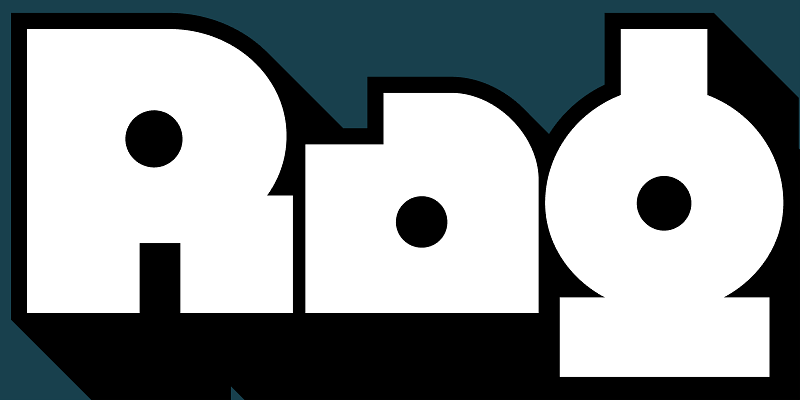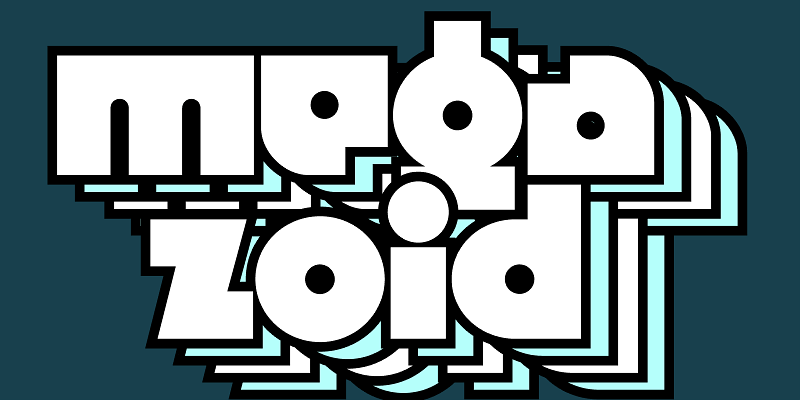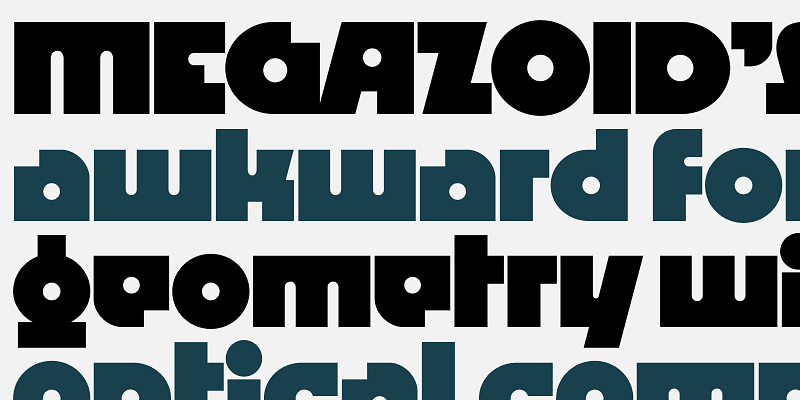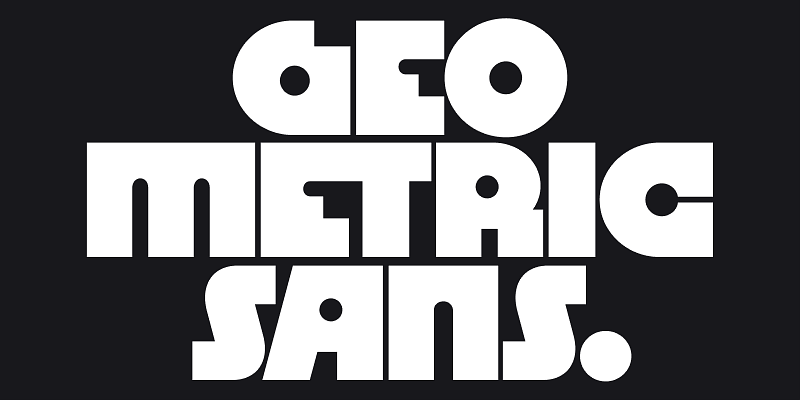
Megazoid celebrates the awkwardness of raw geometry. With little in the way of fine-tuning or optical compensation, it mashes blocky rectangles together with circular counterforms to create striking abstract shapes. Asymmetrical diagonals punctuate the design, adding a touch of unexpected dynamism. The result is a geometric sans that manages to feel just at home on a retro guitar amp as it would on a futuristic interstellar satellite.
David Jonathan Ross draws letters of all shapes and sizes for custom and retail typeface designs from his studio in the woods of Western Massachusetts. A native of Los Angeles, He began drawing typefaces at Hampshire College and joined The Font Bureau in 2007 where he honed his bézier-wrangling skills. Now he publishes his typeface designs at his own foundry, DJR, as well as working on projects with Type Network and developing unusual display faces for his Font of the Month Club.